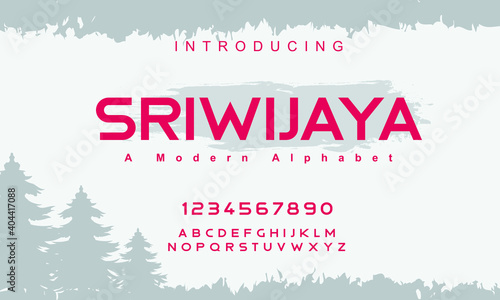
Sriwijaya font. Abstract sport modern alphabet fonts. Typography bold typeface design for sport, technology, fashion, digital, future creative logo font. vector illustration